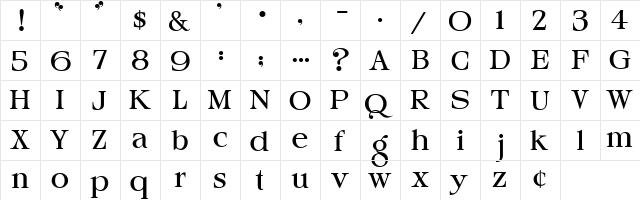
4 Tenor DNA Regular
Design Context for 4 Tenor DNA Typeface
4 Tenor DNA takes a measured approach to typography — its balanced proportions and neutral character make it a reliable workhorse for both digital and print work.